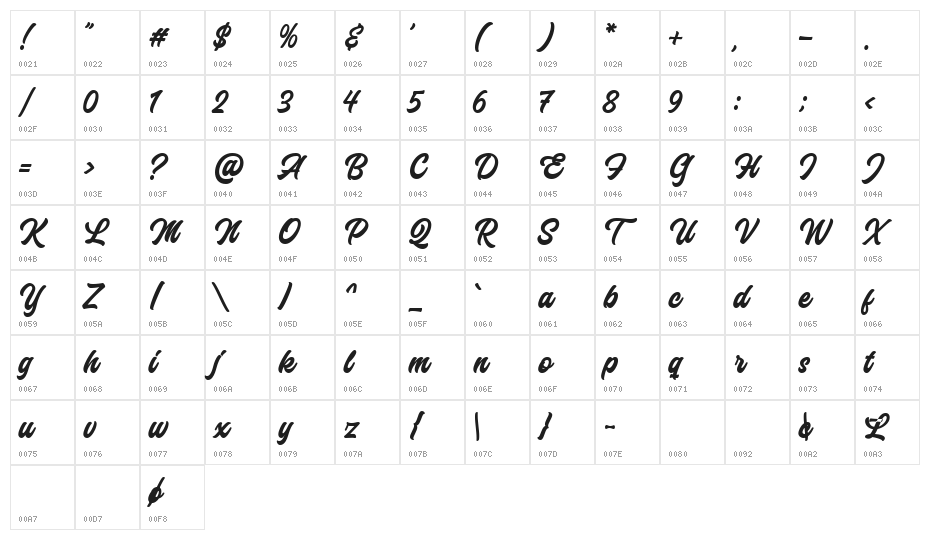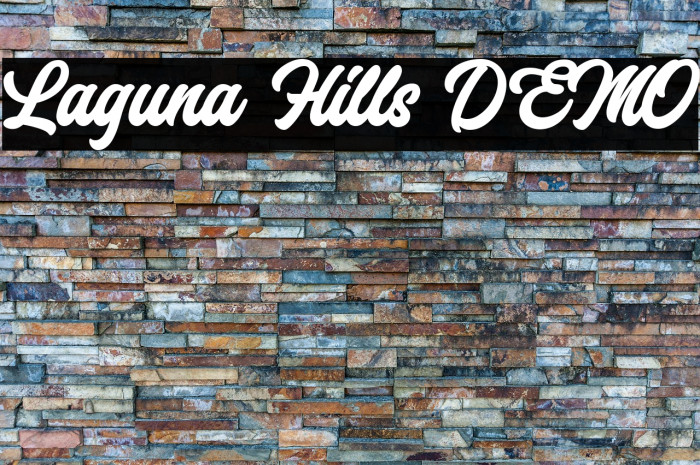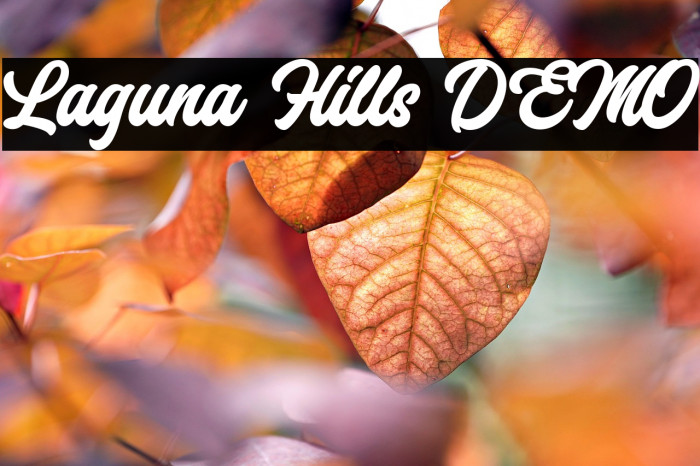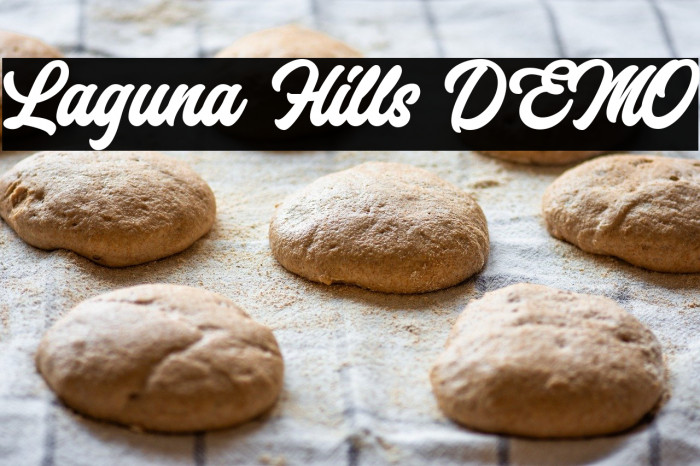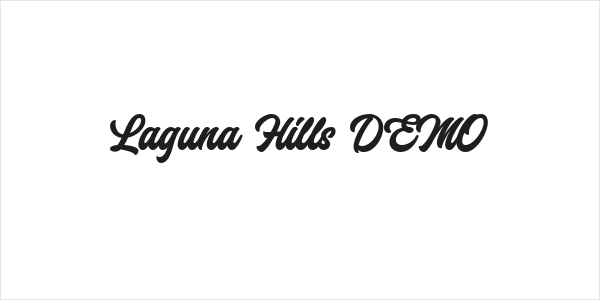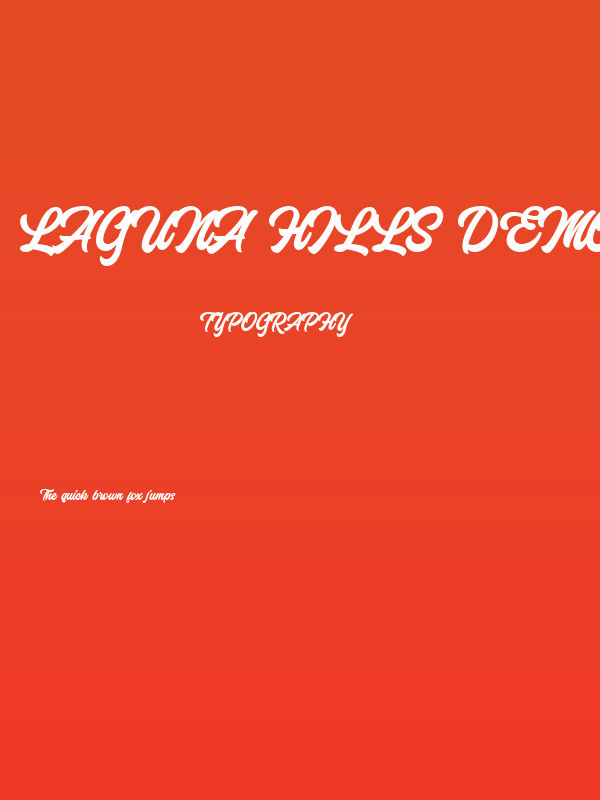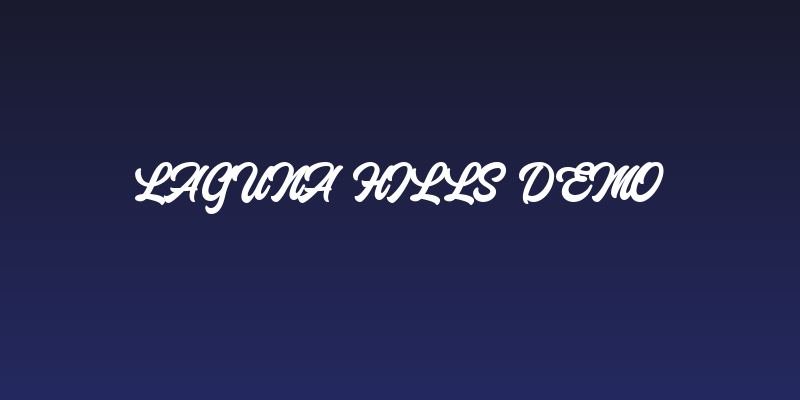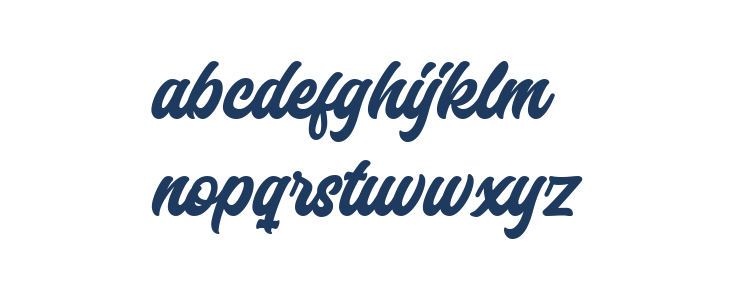
Laguna Hills DEMO Font
Laguna Hills DEMO Description
This font features a bold, cursive style with a strong emphasis on fluidity and elegance. The characters are closely connected, creating a seamless flow that mimics natural handwriting. The uppercase letters are slightly larger and more pronounced, while the lowercase letters maintain a consistent, smooth curvature. The numbers and special characters are designed to match the overall aesthetic, ensuring a cohesive look across all elements. The font's bold weight and high contrast between thick and thin strokes enhance its readability and visual impact, making it suitable for various creative applications.